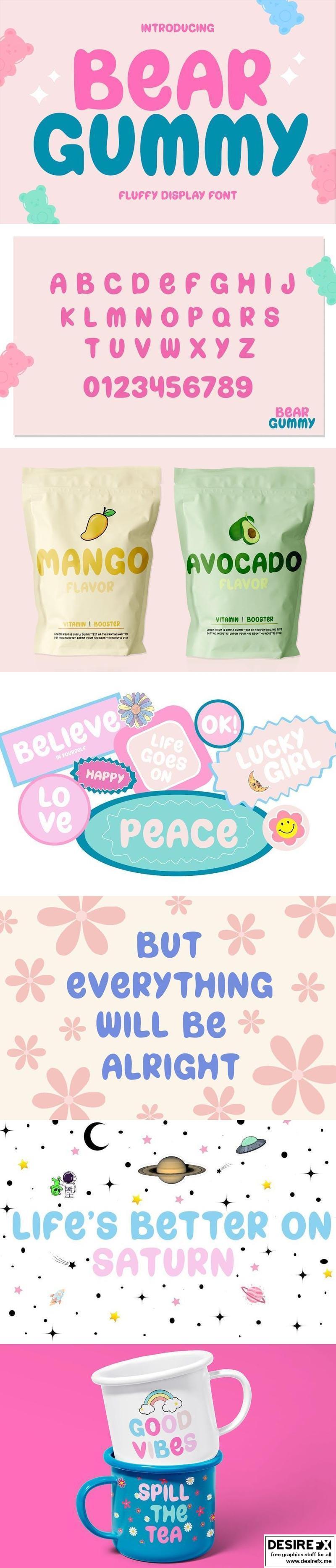
Bear Gummy JZ6VSU9
**Bear Gummy** will perfect for many project: book, magazines, logo, branding, photography, quotes, blog header, poster, advertisements, etc.